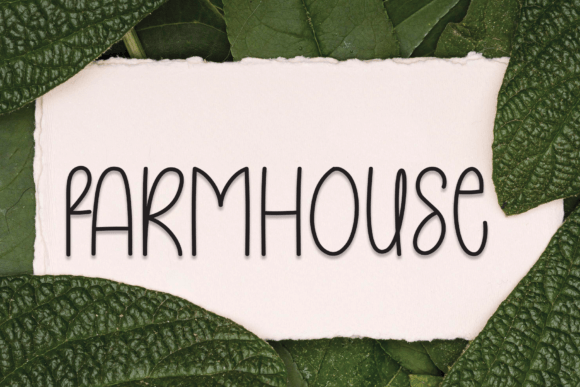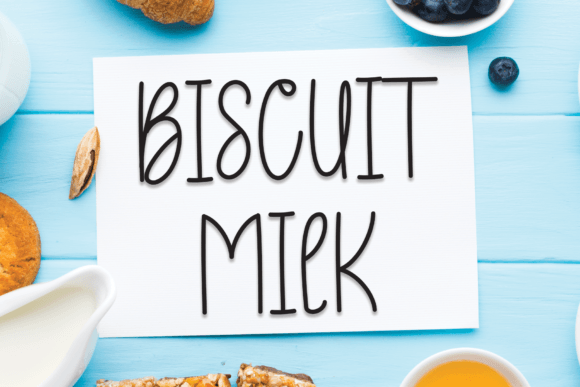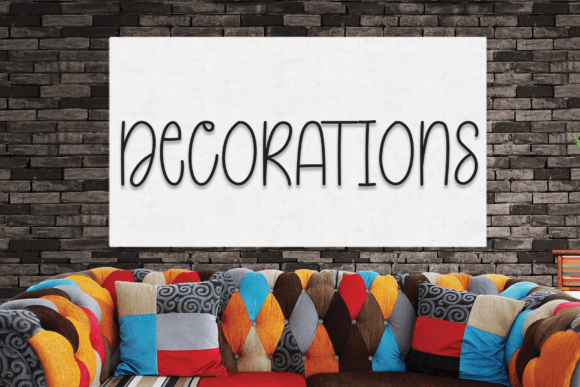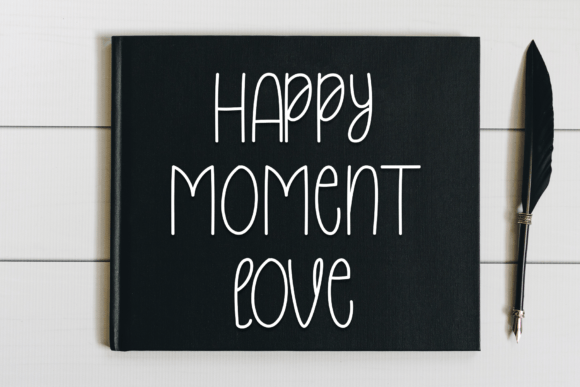
Lemonade Font
Lemonade Handwritten Font – Fun and Friendly Typeface
The Lemonade Handwritten Font is a cheerful and versatile typeface designed to bring warmth and personality into your projects. With its casual handwritten strokes and playful design, it works perfectly for both digital and print formats. Whether you’re designing invitations, greeting cards, or social media posts, this font ensures your work stands out with charm.
A Handwritten Script with Style
The Lemonade Handwritten Font blends smooth curves with natural handwritten flow. Its casual yet polished style makes it suitable for many applications, from crafts to branding. Because of its balance between clarity and creativity, it can easily fit both personal and professional projects.
Perfect for Crafts and Greeting Cards
One of the most popular uses of the Lemonade Handwritten Font is in crafts and greeting cards. Its playful strokes add warmth to thank-you notes, wedding stationery, and handmade designs. At the same time, it shines in posters, DIY projects, and decorative layouts, bringing a creative touch.
Versatility for Creative Projects
The Lemonade Handwritten Font adapts beautifully to many different uses. From product packaging and logos to business cards and social media graphics, it gives designs a fun handwritten charm. Its approachable and modern style ensures it fits across both casual and professional contexts.
Why Designers Love Lemonade Font
Designers appreciate the Lemonade HandwrittenFont for its balance of personality and usability. It is cheerful enough for playful projects while still being professional enough for branding. This versatility makes it a valuable addition to any design toolkit.
In summary, the Lemonade HandwrittenFont is a fun, friendly, and versatile typeface. With its smooth handwritten strokes, quick installation, and broad usability, it is perfect for greeting cards, crafts, posters, and branding. Don’t miss the chance to download Lemonade HandwrittenFont and bring a playful, natural touch to your next design.